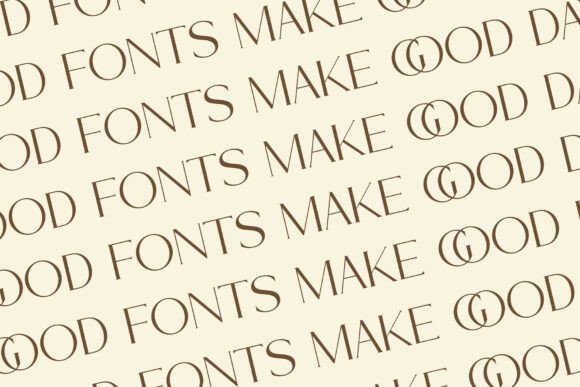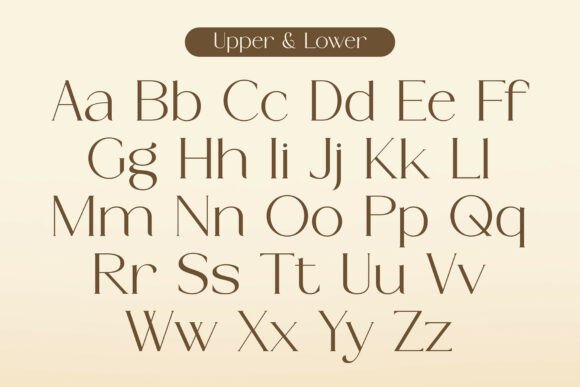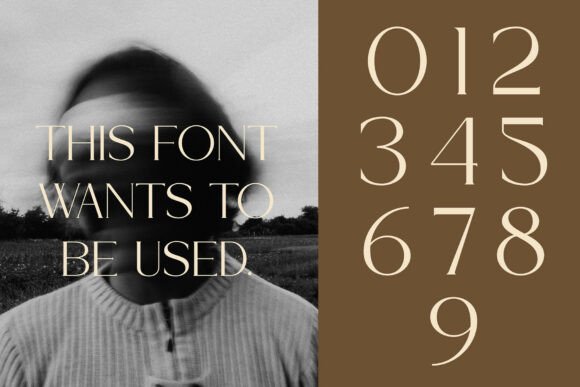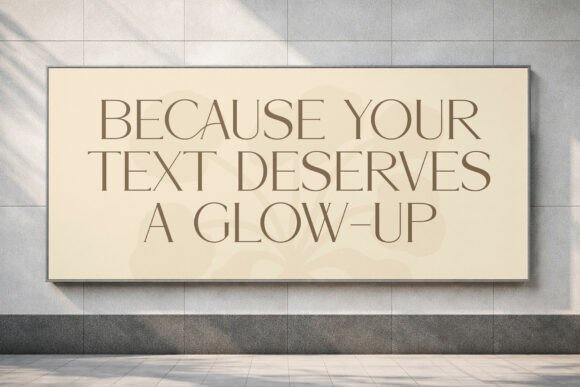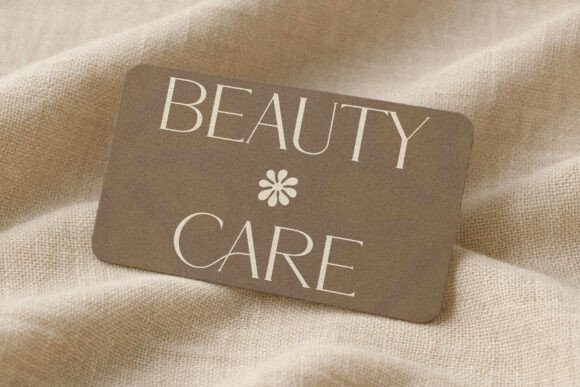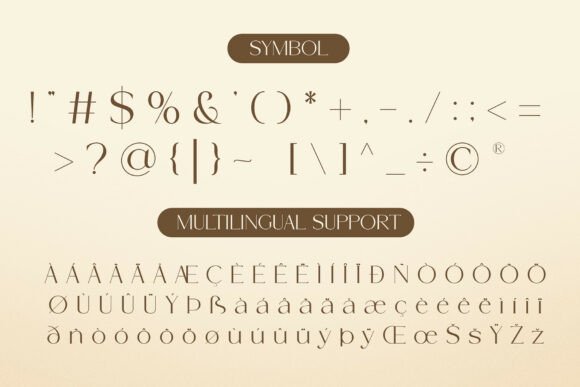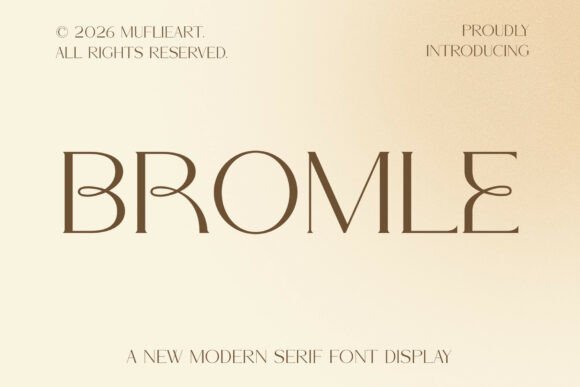
Bromle Font: Elevate Your Design with Modern Serif Elegance
In the realm of typography, the right font can elevate your design from ordinary to extraordinary. Introducing Bromle, a modern serif font display that embodies the perfect blend of classic sophistication and contemporary flair. This stunning typeface is designed to bring a touch of elegance and refinement to your visual communication, making it an ideal choice for designers and crafters seeking to create a lasting impression.
The Essence of Bromle: A Harmonious Blend of Classic and Modern
Bromle masterfully combines the refined authority of classical serifs with playful, contemporary flourishing, resulting in a unique and captivating visual experience. Its slender, monolinear strokes and charming, looping terminals evoke a sense of airy sophistication and creative movement, perfect for boutique branding, bespoke stationery, luxury lifestyle content, and high-end web headers.
Key Features of Bromle Font
- Tall x-height: Bromle’s tall x-height ensures excellent legibility and a sense of elegance, making it suitable for a wide range of design applications.
- Elegant negative spaces: The font’s thoughtful design creates a beautiful balance between text and background, adding to its overall sophistication.
- Slender, monolinear strokes: Bromle’s slender strokes bring a sense of refinement and luxury to your design, while its monolinear construction ensures a cohesive look.
- Charming, looping terminals: The font’s playful terminals add a touch of whimsy and creativity, making it perfect for designs that require a bit of personality.
Applications of Bromle Font
Bromle’s versatility and elegance make it an excellent choice for various design applications, including:
- Boutique branding: Use Bromle to create a luxurious and sophisticated brand identity that stands out from the crowd.
- Bespoke stationery: Add a touch of elegance to your stationery with Bromle, perfect for high-end business communications or personal correspondence.
- Luxury lifestyle content: Elevate your content with Bromle’s refined and sophisticated aesthetic, ideal for luxury lifestyle brands and publications.
- High-end web headers: Use Bromle to create stunning web headers that make a lasting impression on your audience.
Why Choose Bromle Font?
In a world where typography plays a crucial role in design, Bromle stands out as a exceptional choice for designers and crafters seeking to create a memorable presence. With Bromle, you can:
- Convey polished artisanal prestige: Bromle’s elegant design ensures that your message is conveyed with sophistication and refinement.
- Add effortless, human-centric beauty: The font’s charming and playful terminals bring a touch of warmth and personality to your design.
- Create a legendary and memorable presence: With Bromle, you can create a lasting impression on your audience, setting your brand or design apart from the rest.
Bromle font is a game-changer for designers and crafters seeking to elevate their design with modern serif elegance. Its unique blend of classic sophistication and contemporary flair makes it an exceptional choice for a wide range of design applications. With Bromle, you can add a touch of refined luxury and effortless beauty to your visual communication, ensuring a legendary and memorable presence that leaves a lasting impression.